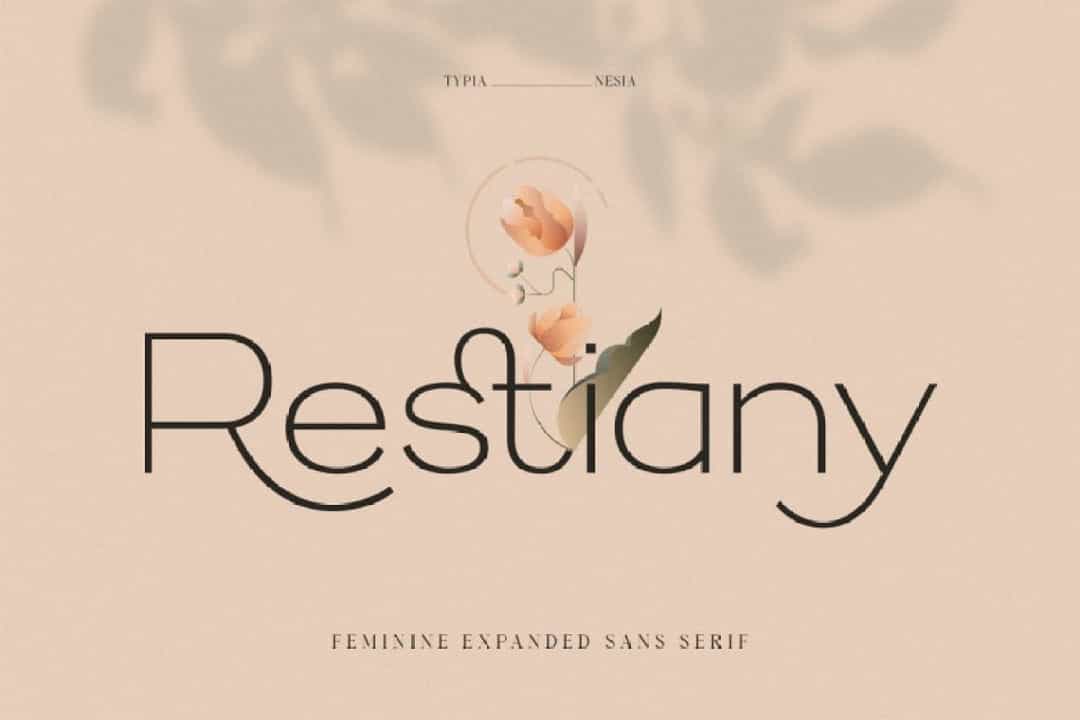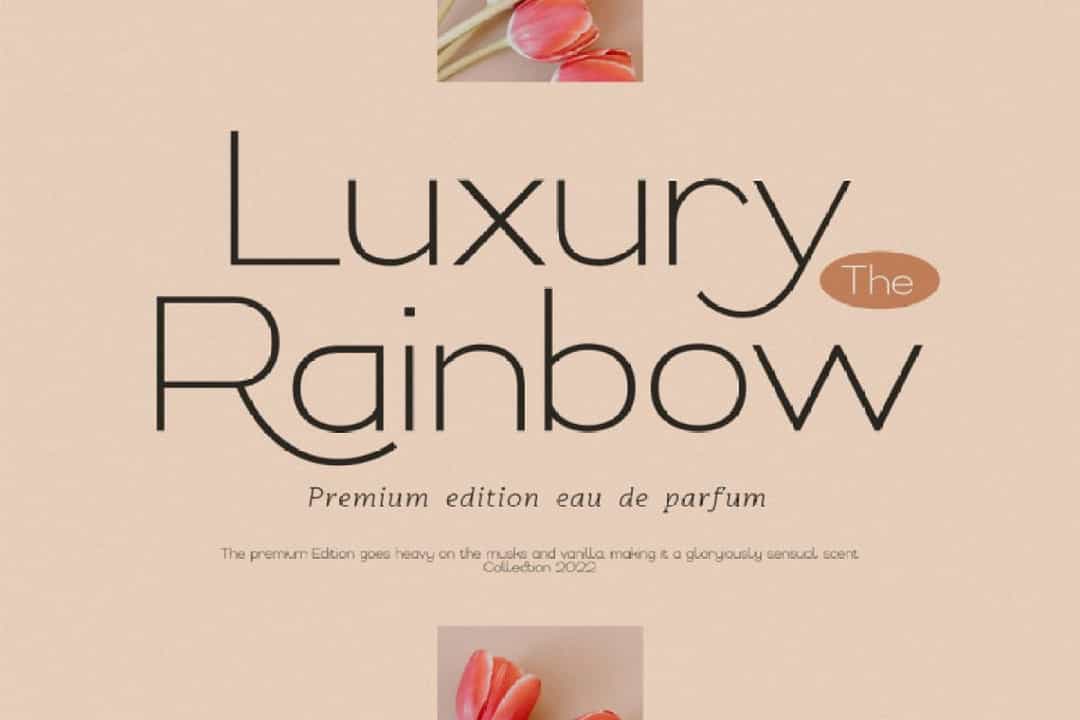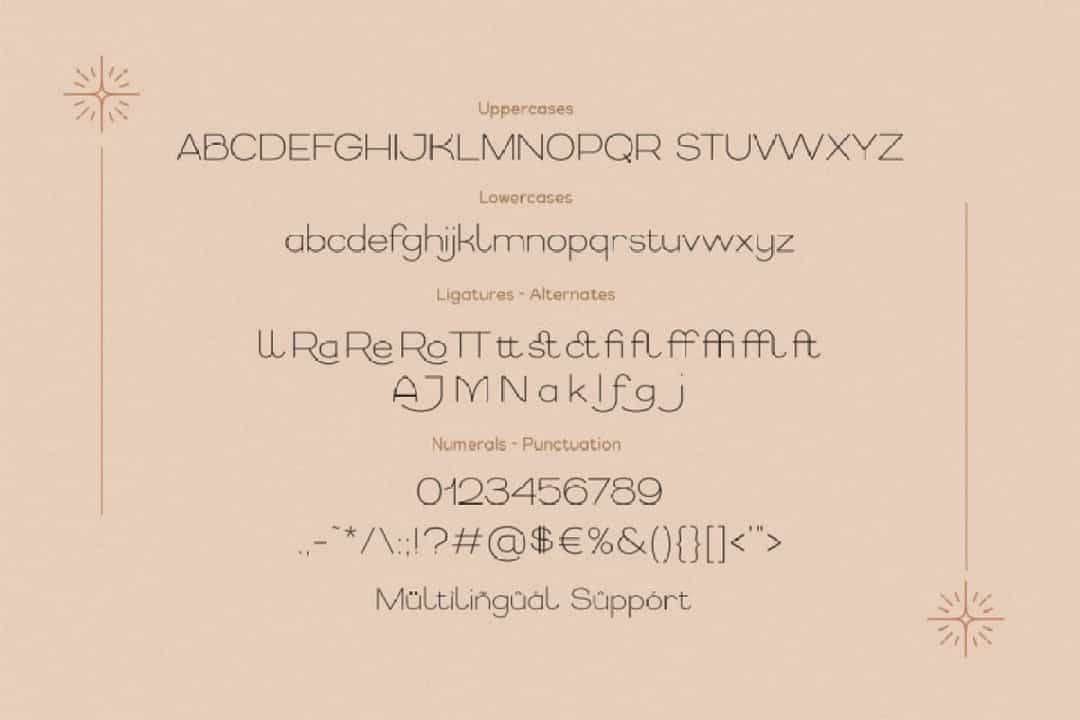
Restiany is a classic yet feminine sans serif font designed to meet all your branding and feminine project needs, such as logos, labels photos watermarks special events or anything that requires the perfect script style.